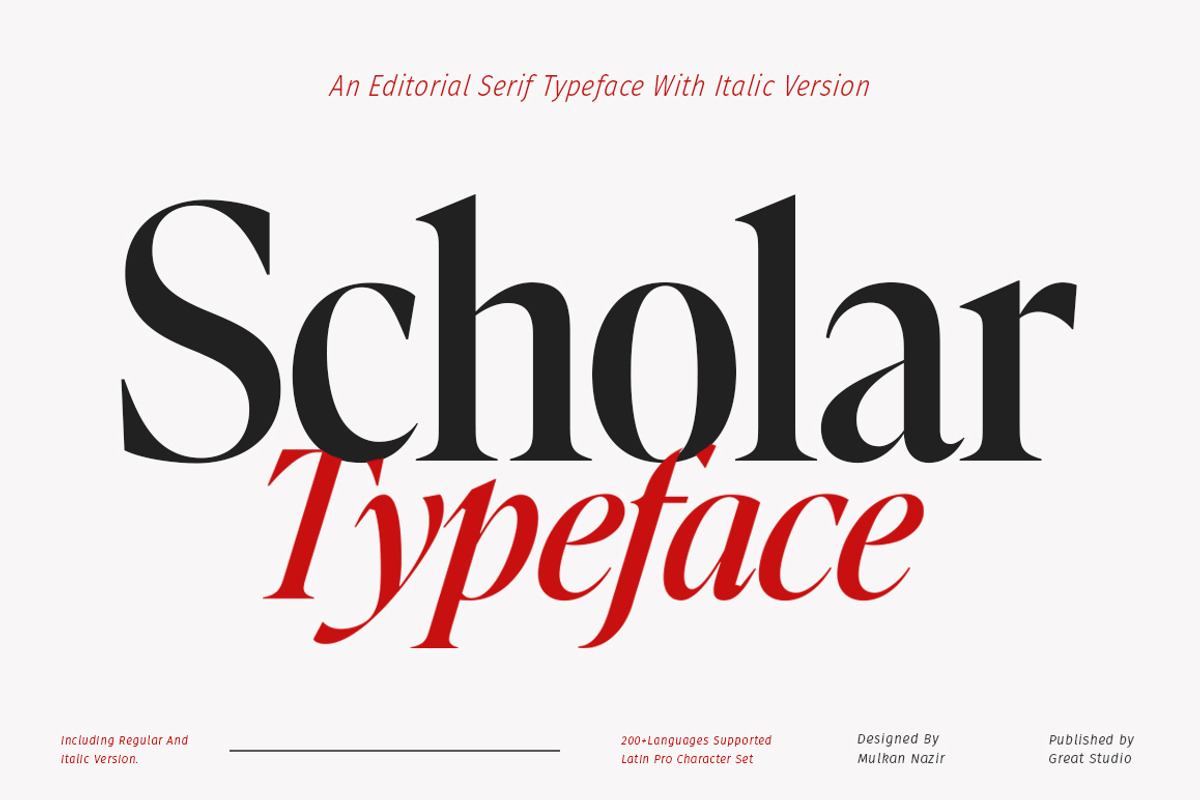
Scholar Serif Typeface Free Download
Scholar Serif Typeface Free Download is a classic and intellectual typeface designed with academic elegance and editorial clarity in mind. Featuring clean lines, balanced proportions, and timeless serifs, Scholar is perfect for book covers, scholarly articles, educational branding, professional presentations, and literary-inspired designs.
Crafted for both readability and sophistication, Scholar Serif Typeface Free Download works beautifully in both print and digital formats. It’s ideal for body text, footnotes, headlines, and formal layouts—making it a versatile tool for content that values both beauty and precision.